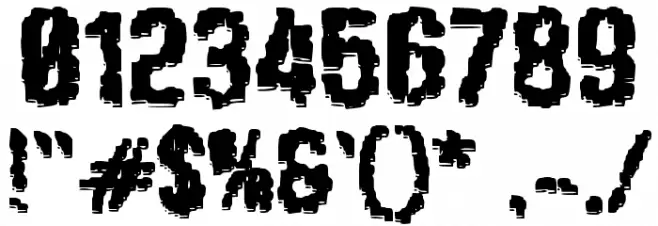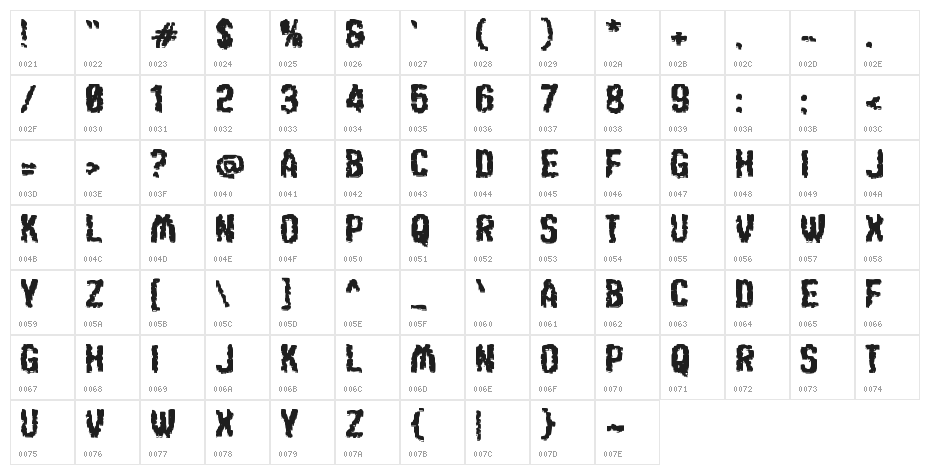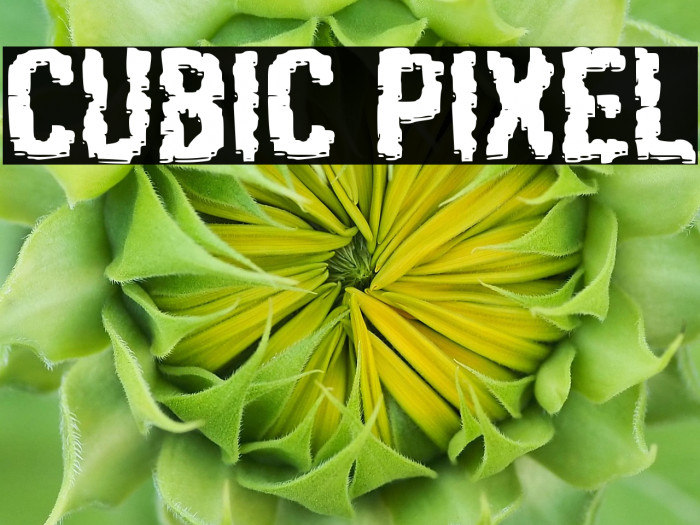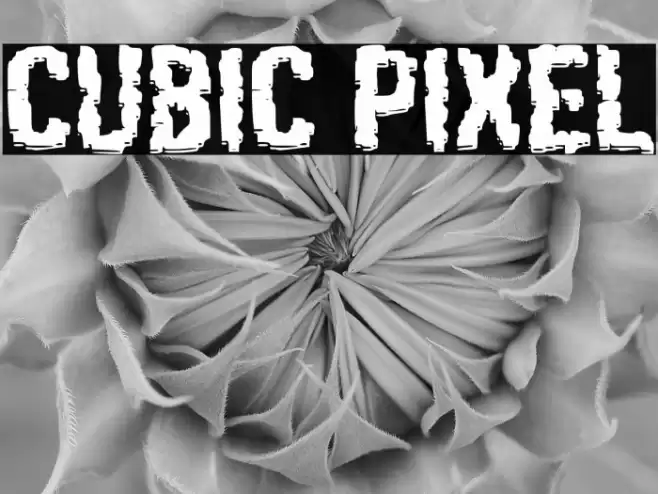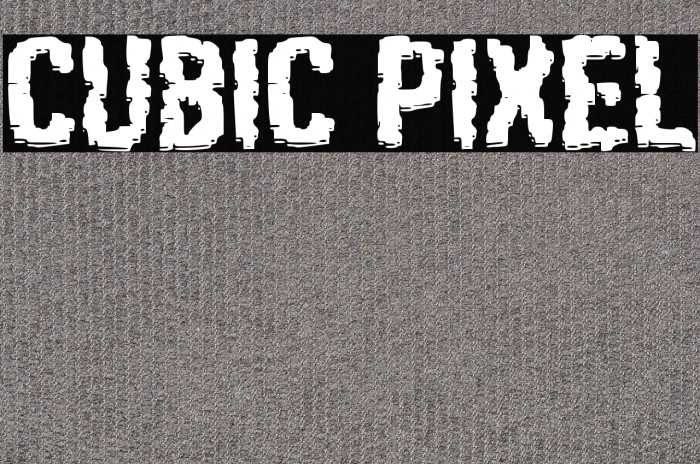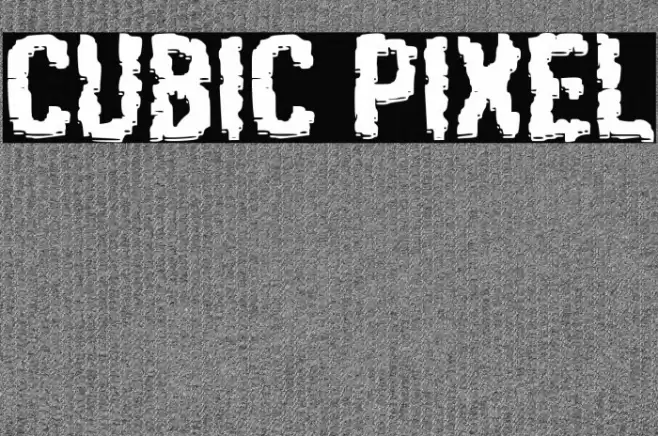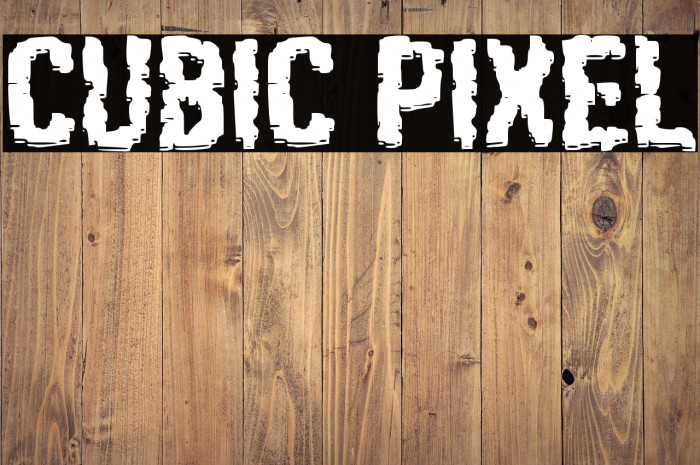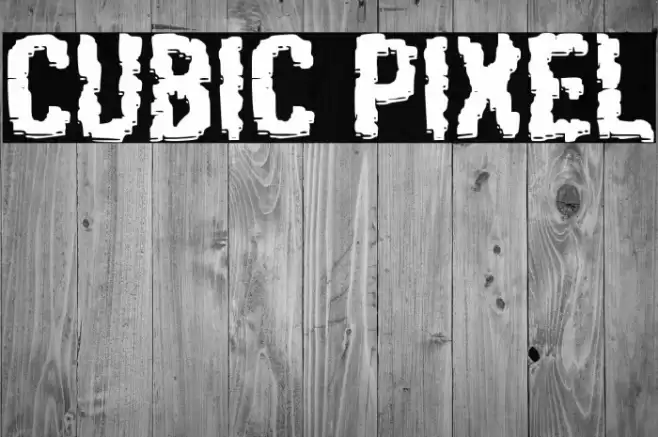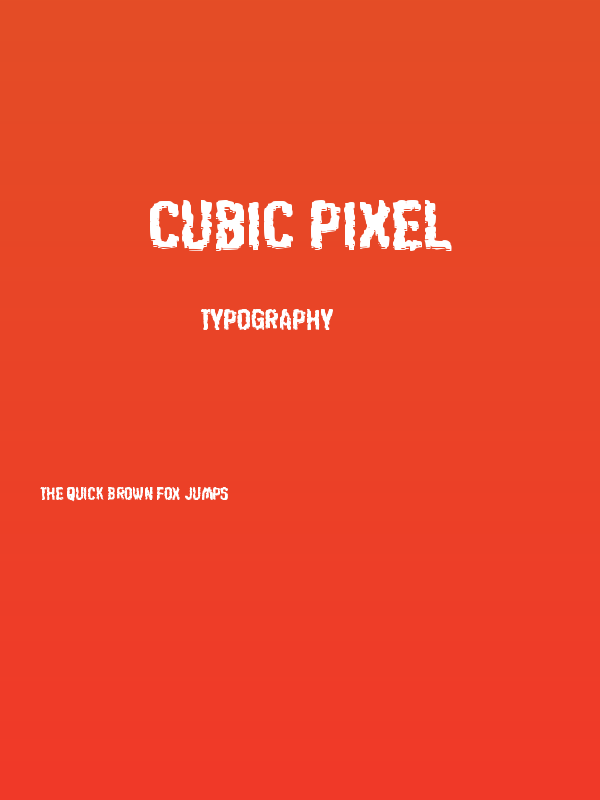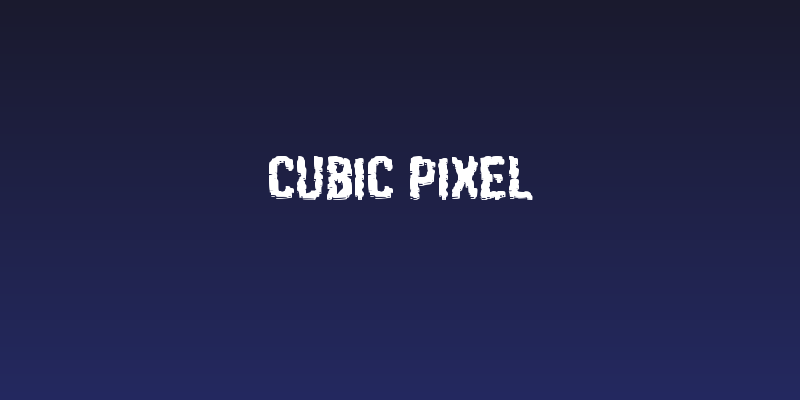
Cubic Pixel Font
Cubic Pixel Description
This font features a bold, distressed style with a pixelated, rough texture that gives it a rugged and edgy appearance. The characters are blocky and irregular, with jagged edges that create a sense of movement and dynamism. The uppercase and lowercase letters maintain a consistent height, while the numbers and special characters follow the same design principles, ensuring uniformity across all elements. The font's unique aesthetic makes it stand out, offering a visually striking option for creative projects.
| Overall Style | Modern, Edgy |
| Proposed Projects | Ideal for video game design, urban-themed posters, album covers, and edgy branding projects. |